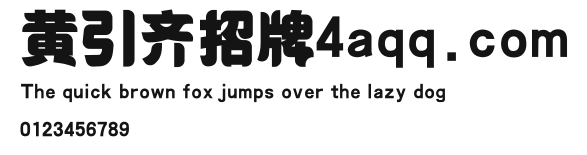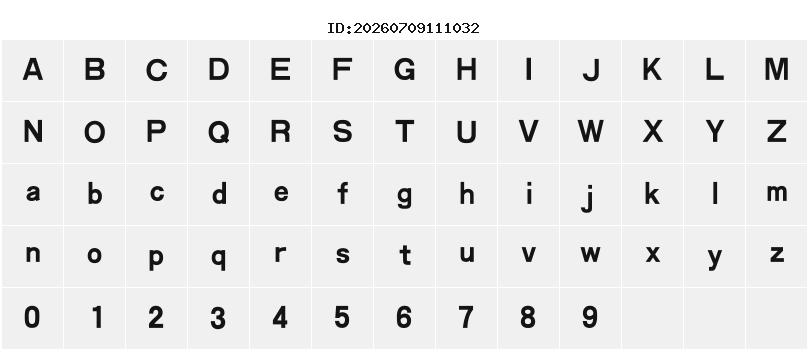
黄引齐招牌4aqq.com Preview
• Font Name: 黄引齐招牌4aqq.com
• Font ID: 黄引齐招牌4aqq.com Regular
• Full Font Name: 黄引齐:黄引齐招牌4aqq.com,Regular
• Version: Version 1.00 July 26, 2018, initial release
• PostScript Name: zhaopai
• Character Count: 8099
About 黄引齐招牌4aqq.com.ttf
黄引齐招牌4aqq.com.ttf is a modern, elegant sans-serif font designed for ultimate readability and visual harmony. Perfect for branding, headlines, web design, and print materials.